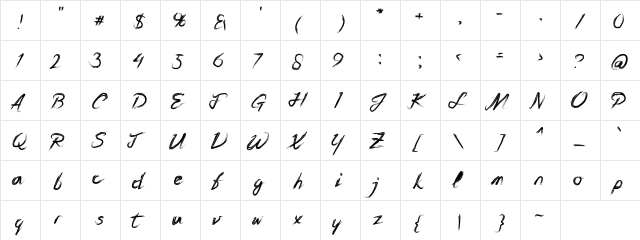
Brushers Hands Regular
| Foundry | ijemskulpen_ijempirate_ferdiansyah |
| Designer | ijemskulpen_ijempirate_ferdiansyah |
Design Context for Brushers Hands Typeface
Brushers Hands brings a calligraphic fluidity to the page — its connecting strokes and expressive curves give it an unmistakably human quality.
Font Pairing: Combine Brushers Hands with a simple geometric sans for maximum contrast — the tension between flowing curves and clean structure is a classic typographic pairing.
Pro Tip: Use Brushers Hands for short runs of text — names, titles, or taglines. Extended body copy in script faces tires the eye quickly.